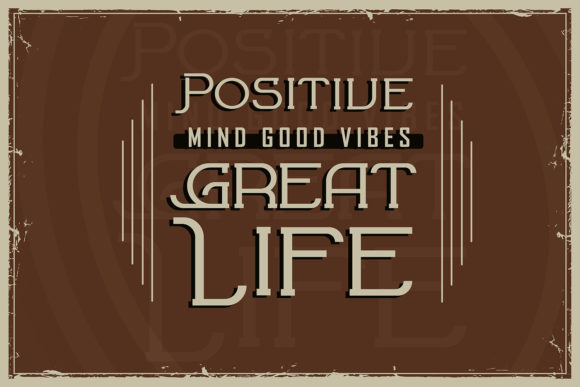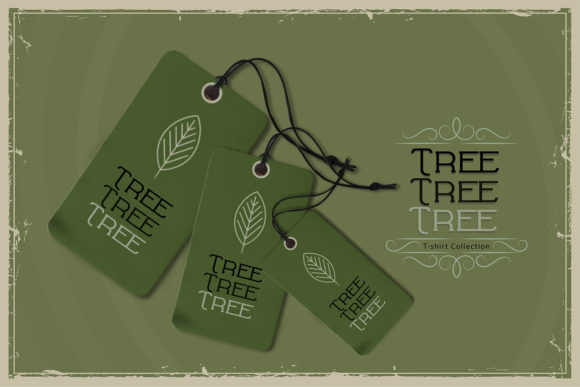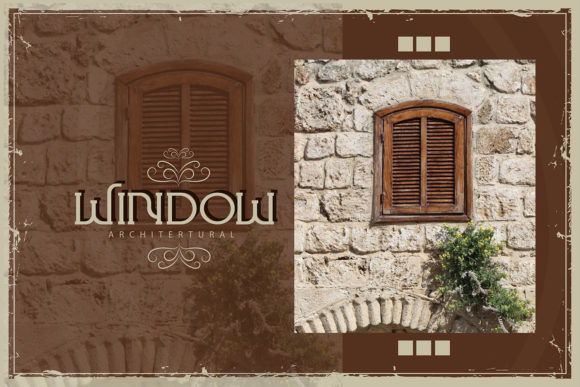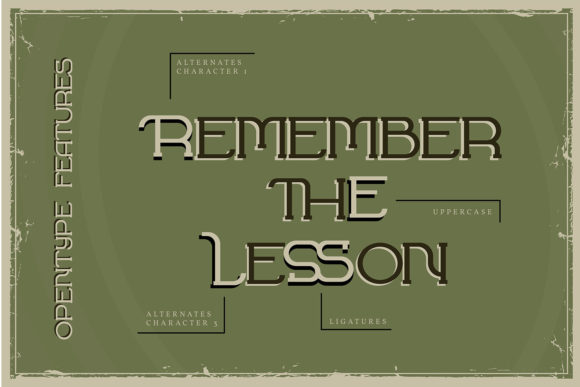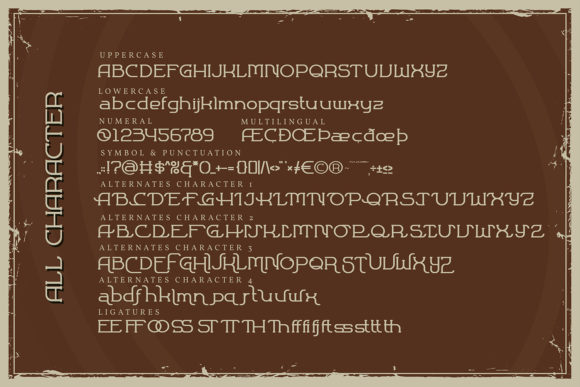
Introducing Boltron Font: Elevate Your Designs with Bold, Vintage Elegance
Are you on the hunt for a font that exudes sophistication, elegance, and a touch of nostalgia? Look no further than Boltron Font, a stunning bold, vintage-styled display font that’s sure to elevate your designs to new heights. In this article, we’ll dive into the world of Boltron, exploring its features, benefits, and uses, as well as why it’s a must-have addition to your font library.
What is Boltron Font?
Boltron Font is a bold, vintage-styled display font that’s perfect for designers and crafters looking to add a touch of elegance to their creations. With its imposing presence, Boltron is ideal for headlines, titles, and promotional materials that require a font with a strong personality. This beautiful font is designed to make a statement, and its versatility ensures it can be used across various design projects, from logos and branding to packaging and advertising.
Key Features of Boltron Font
- Bold and Elegant Design: Boltron Font boasts a bold, yet elegant design that’s reminiscent of vintage typography. Its classic style ensures it remains timeless, making it perfect for designs that require a touch of sophistication.
- Vintage Styled: The font’s vintage style is evident in its intricate details and classic lines, which evoke a sense of nostalgia and luxury.
- PUA Encoded: Boltron Font is PUA (Private Use Area) encoded, which means you can access all the glyphs and swashes with ease. This feature makes it simple to use and customize the font to suit your design needs.
- Wide Range of Uses: Boltron Font is incredibly versatile and can be used across various design projects, including logos, branding, packaging, advertising, and more.
Benefits of Using Boltron Font
So, why should you add Boltron Font to your library? Here are just a few benefits of using this stunning font:
- Adds Sophistication to Your Designs: Boltron Font’s elegant design ensures it adds a touch of sophistication to any project, making it perfect for designers looking to create high-end designs.
- Versatile and Flexible: The font’s versatility ensures it can be used across various design projects, from logos and branding to packaging and advertising.
- Easy to Use: Boltron Font is PUA encoded, making it simple to access all the glyphs and swashes. This feature saves you time and effort, allowing you to focus on the creative aspects of your design.
- Stand Out from the Crowd: With Boltron Font, you can create designs that stand out from the crowd. Its bold, vintage-styled design ensures your creations grab attention and leave a lasting impression.
Who Can Benefit from Boltron Font?
Boltron Font is perfect for a wide range of designers and crafters, including:
- Graphic Designers: Boltron Font is ideal for graphic designers looking to add a touch of elegance and sophistication to their designs.
- Logos and Branding Specialists: The font’s bold, vintage-styled design makes it perfect for logos and branding projects that require a strong, yet elegant presence.
- Packaging Designers: Boltron Font is suitable for packaging designers looking to create eye-catching and sophisticated packaging solutions.
- Advertising and Marketing Professionals: The font’s imposing presence ensures it’s perfect for advertising and marketing projects that require a bold, attention-grabbing font.
In conclusion, Boltron Font is a stunning bold, vintage-styled display font that’s perfect for designers and crafters looking to add a touch of elegance and sophistication to their creations. With its PUA encoding, versatile design, and wide range of uses, Boltron Font is a must-have addition to your font library. Whether you’re a graphic designer, logo and branding specialist, packaging designer, or advertising and marketing professional, Boltron Font is sure to elevate your designs to new heights.